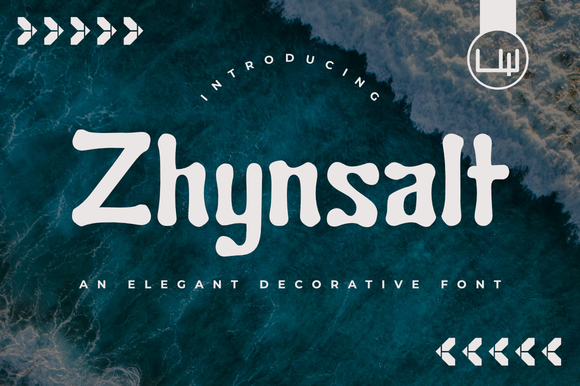
Introducing Zhynsalt Font - The Epitome of Elegance and Distinction in the World of Typography
Embark on a typographic adventure with Zhynsalt Font, a display font that exudes boldness and sophistication. With its striking presence, Zhynsalt Font is the perfect choice for designers seeking to create captivating posters, flyers, and print materials. Prepare to be mesmerized as you explore the endless possibilities this font has to offer.
Zhynsalt Font - A Masterpiece of Visual Allure
Zhynsalt Font possesses an innate ability to command attention, leaving an indelible mark on the minds of your audience. Its carefully crafted characters exude a sense of poise and refinement, making it an ideal choice for conveying messages of importance. Whether you're designing a poster for an upcoming event, a flyer for a special promotion, or any other printed material, Zhynsalt Font will elevate your designs to new heights of visual appeal.
Zhynsalt Font - The Perfect Font for Making a Statement
In a world saturated with visual content, it's essential to make a statement that sets you apart from the crowd. Zhynsalt Font empowers you to do just that. Its bold and stylish appearance will capture the attention of your audience, ensuring that your message is seen and remembered. Whether you're creating marketing materials, branding elements, or any other design project, Zhynsalt Font will provide the visual impact you need to make a lasting impression.
Zhynsalt Font - Your Gateway to Endless Creative Possibilities
Zhynsalt Font is a font that encourages experimentation and creativity. Its versatile nature allows it to seamlessly blend with various design styles, giving you the freedom to explore your imagination. Unleash your creativity and let Zhynsalt Font guide you towards stunning visual masterpieces. The possibilities are truly limitless with this remarkable font at your disposal.